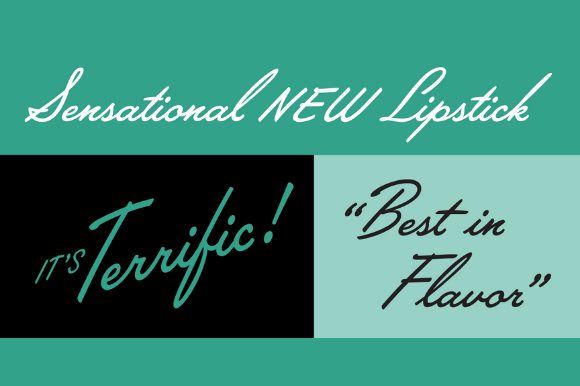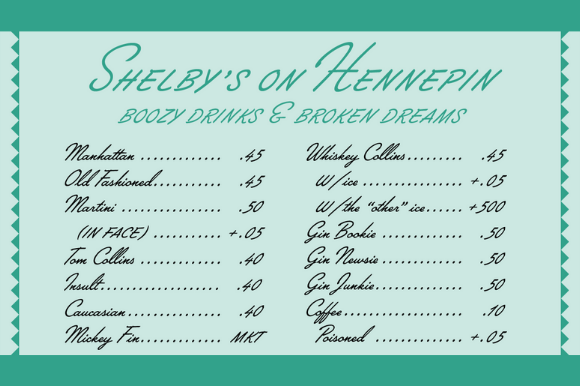
Lakeside Font
db-ku.com - Script & Handwritten -- Lakeside (2008) is a flowing 1940s-style brush script, inspired by hand-lettered titles in Otto Preminger’s classic 1944 film noir movie “Laura”.